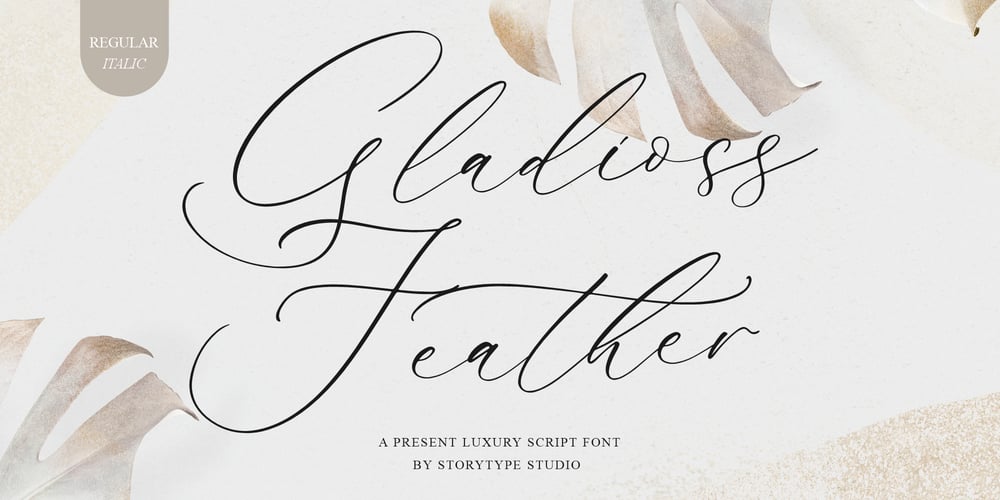
Gladioss Feather
Gladioss Feather font
Gladioss Feather Font Family was designed by Heru Utama Putra and published by Letterena Studios. Gladioss Feather contains 2 styles and family package options. Gladioss Feather is a luxury script that has its own unique style & modern look.This typeface is perfect for an elegant & luxury logo, book or movie title design, fashion brand, magazine, clothes, lettering, quotes, and so much more.